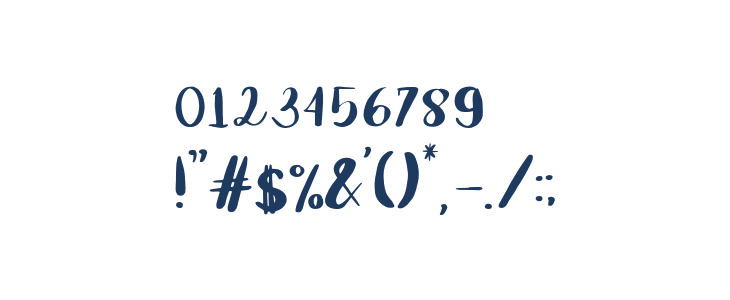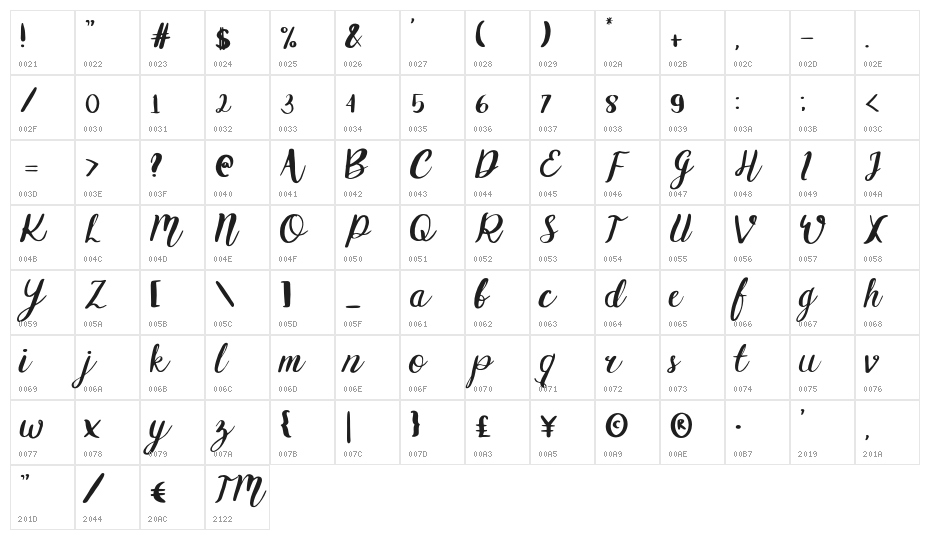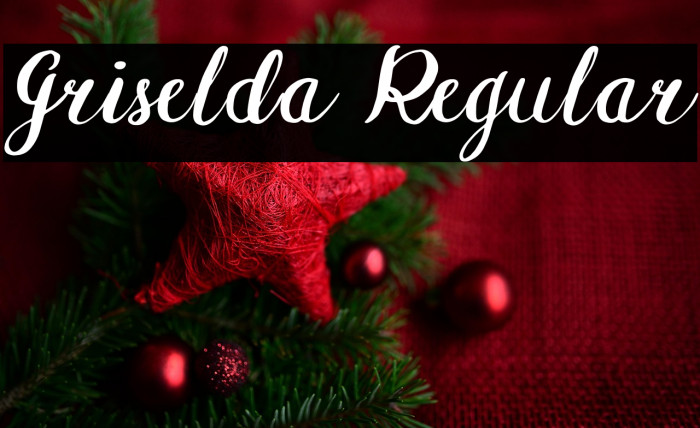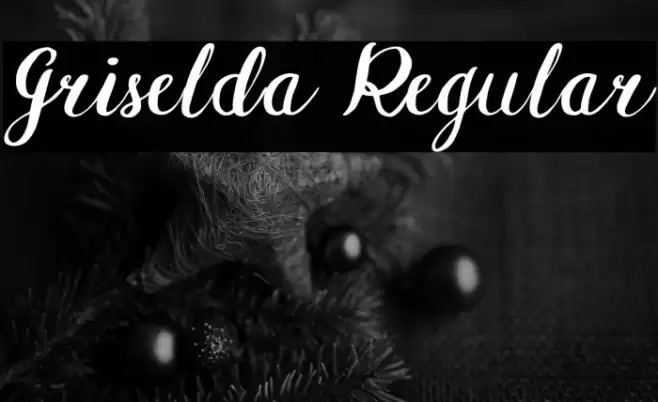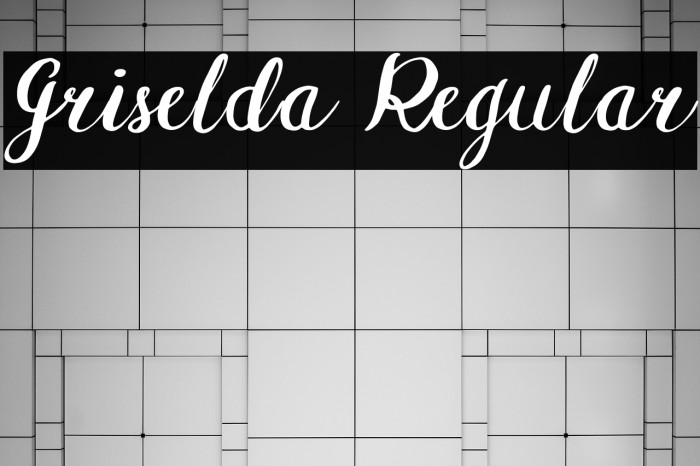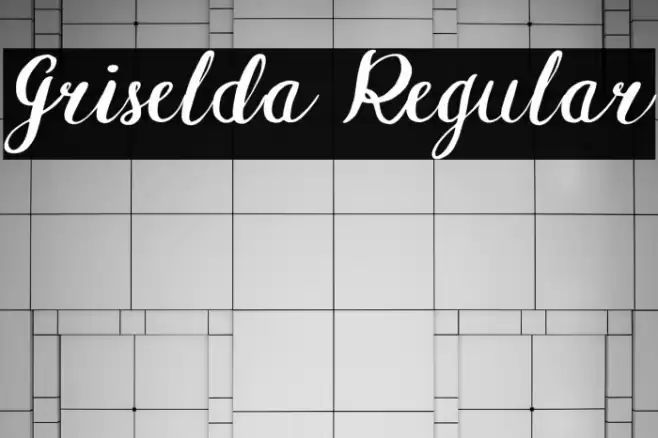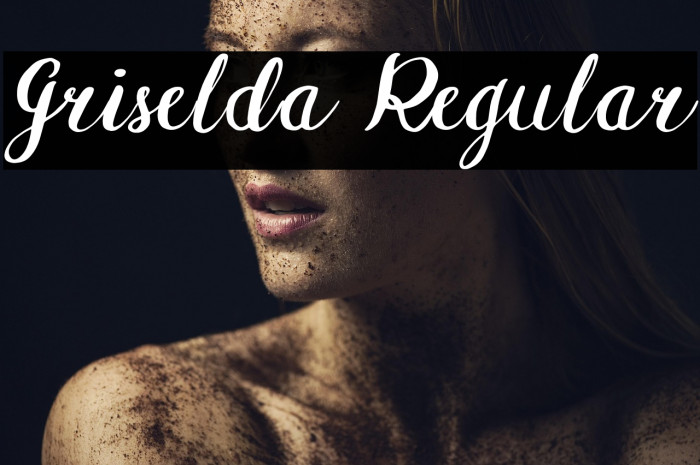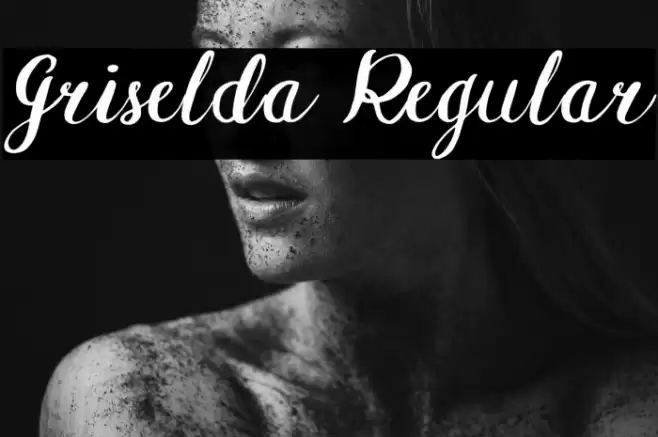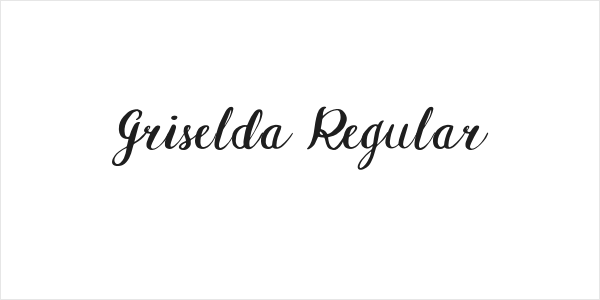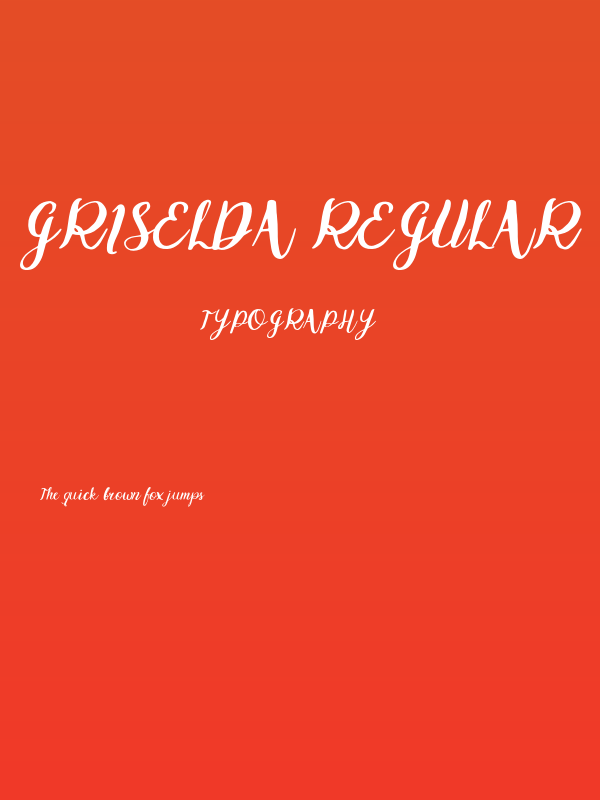
Griselda Regular Font
Griselda Regular Description
This font features a flowing, cursive style that exudes elegance and sophistication. The characters are interconnected with smooth, sweeping strokes, giving it a handwritten appearance. The uppercase letters are bold and prominent, while the lowercase letters maintain a consistent flow, enhancing readability. The numerals are distinct and maintain the same fluidity as the letters. Special characters are designed to complement the overall aesthetic, making it versatile for various applications. The font's style is both classic and modern, suitable for projects that require a touch of elegance.